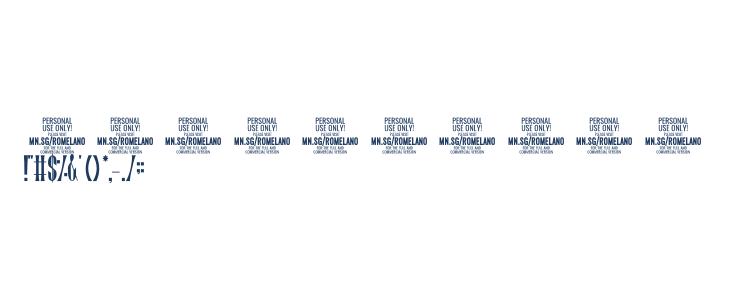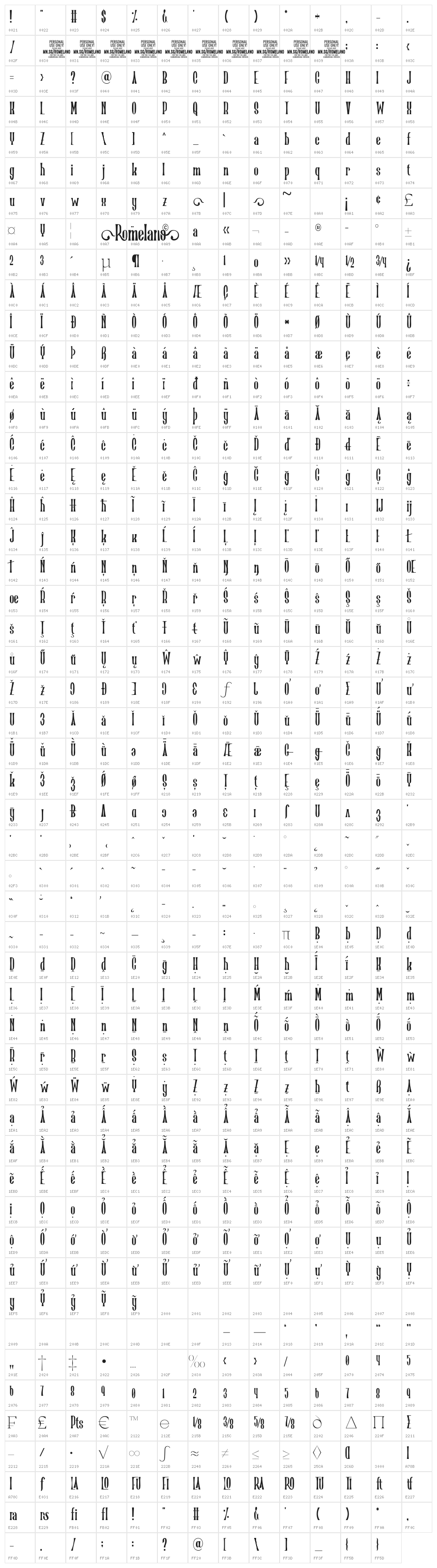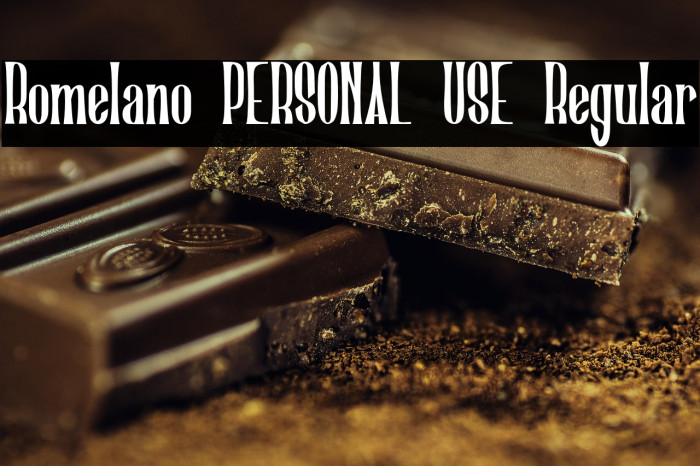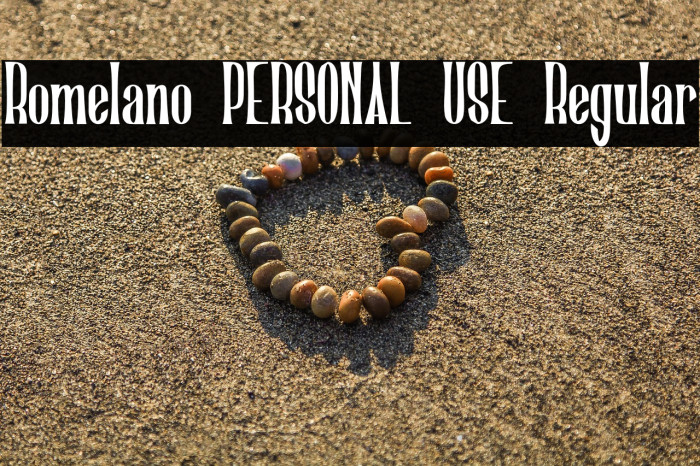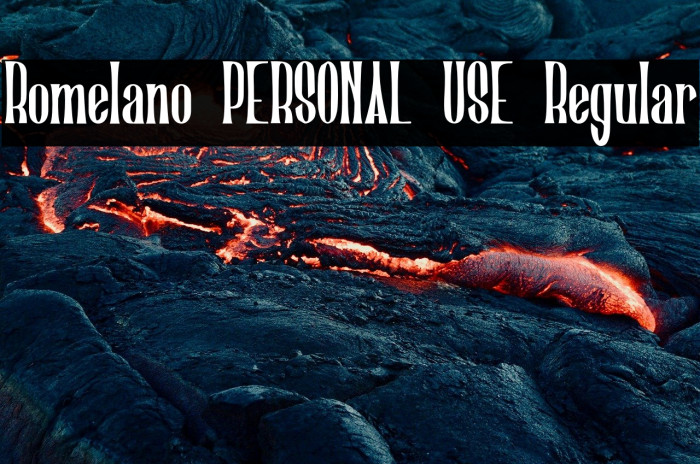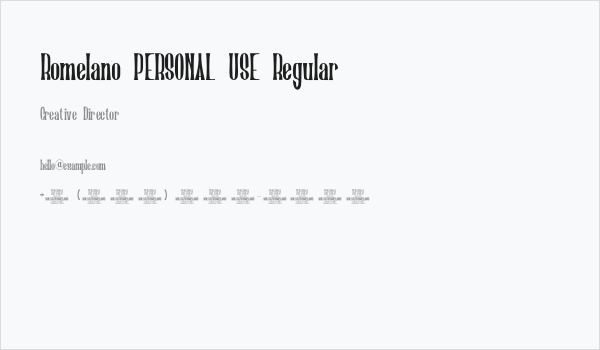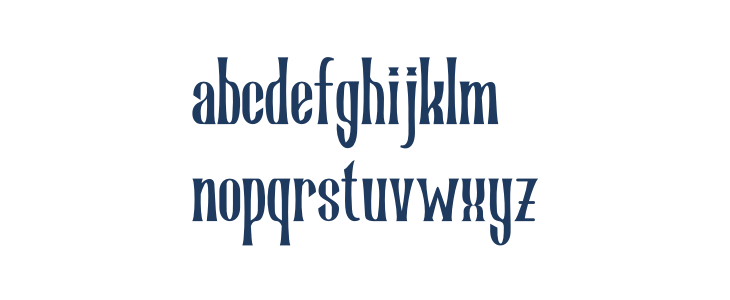
Romelano PERSONAL USE Regular Font
Romelano PERSONAL USE Regular Description
This font features a bold and dynamic style with a strong presence. The uppercase letters are tall and narrow, giving a sense of elegance and sophistication. The lowercase letters maintain a consistent height, complementing the uppercase with a slightly more playful touch. The numbers and special characters are designed to match the overall aesthetic, ensuring a cohesive look across all text. The font's unique character shapes and high contrast between thick and thin strokes make it ideal for attention-grabbing designs.
Proposed ProjectsIdeal for branding, posters, headlines, and any design requiring a strong visual impact.